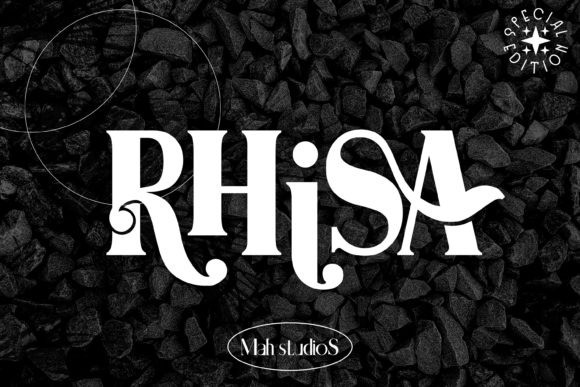
Rhisa Font
Rhisa is a beautiful serif font, suitable for any projects such as logos, branding projects, homeware designs, product packaging, mugs, quotes, posters, shopping bags, t-shirts, book covers, name cards, invitation cards, greeting cards, labels, photography, watermark, special events, and all your other luxury projects that need a premium signature taste.